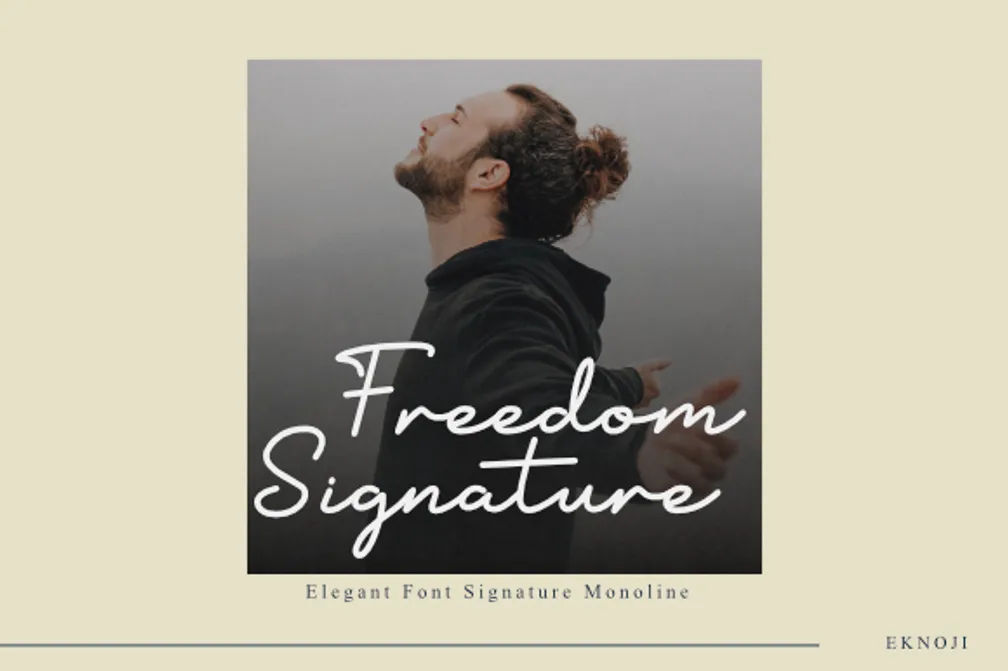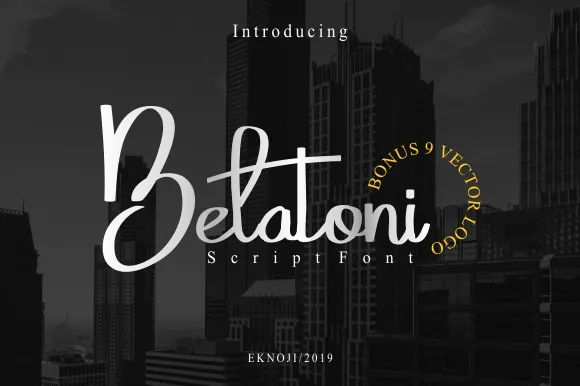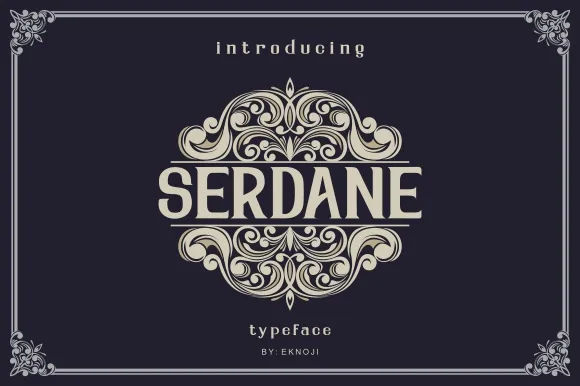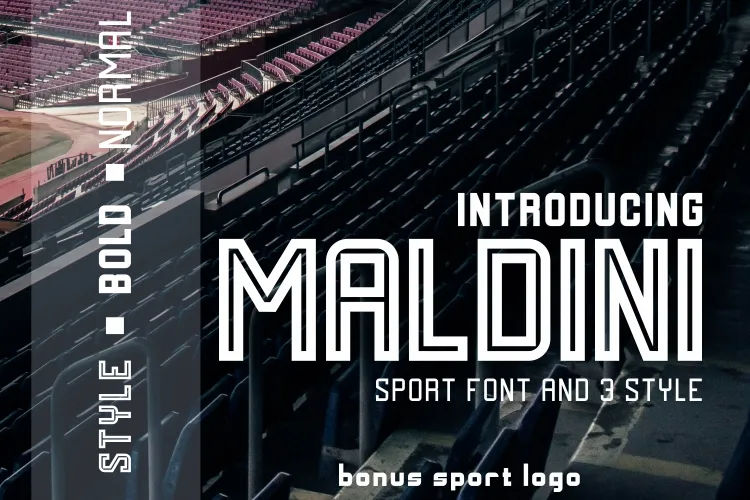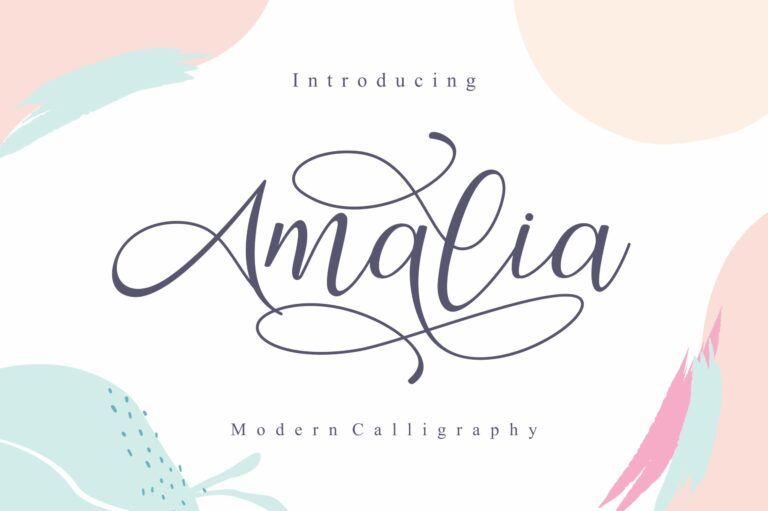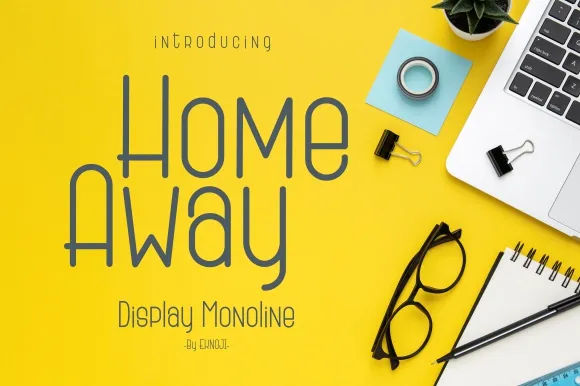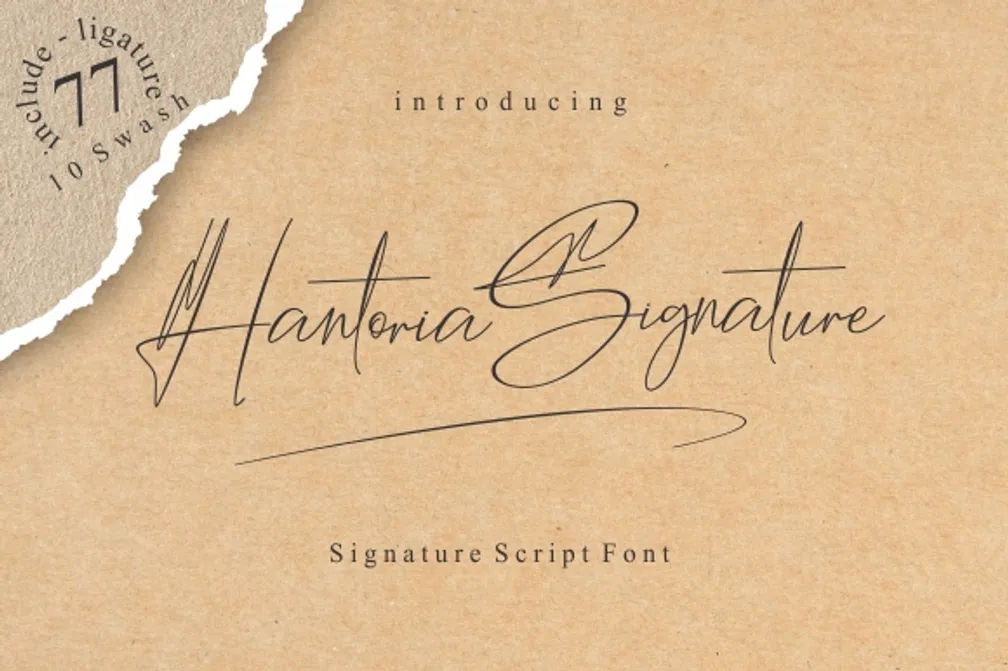
15 Premium Picks: Best Fonts for Ads Targeting Premium Audience
Choosing the right typography can instantly change how people see your brand. The best fonts for ads targeting premium audience don’t just look beautiful, they communicate exclusivity and high value at first glance. When your goal is to attract high-end customers, every visual detail matters, and font choice plays a powerful role in shaping perception.
In this article, we will explore the 15 best premium fonts that are highly effective in elevating the perceived quality of your products or services. Keep reading to discover which typeface can transform your next ad into a statement of elegance!
15 Premium Fonts for Your Premium Audience
Below is the list of 15 best fonts for ads targeting premium audience that combine elegance and aesthetics, helping your brand create a refined visual impression.
1. Freedom Signature
This script font enhances the sense of craftsmanship and exclusivity with its elegant strokes. Fit well to use for diamond collections and gold accessories promotions.
2. Amalia
Amalia brings polished, connected strokes that create an elegant aesthetic; it perfectly complements high-end fashion promotions and boutique clothing branding that need a touch of sophistication.
3. Home Away
Its stylish yet readable design helps upscale brands connect with discerning customers, making it one of the best fonts for ads targeting premium audience. It adds a refined, high-end touch to campaign visuals while maintaining a clean and professional feel.
4. Anilupa
This font elevates ad visuals with a refined presence that signals quality and prestige. It works perfectly for boutique fashion brands, helping you communicate style and exclusivity in a simple yet elegant way.
5. Hantoria Signature
Thanks to its handwritten charm with refined aesthetics, Hantoria signature font helps your brand stand out. For both fashion and skincare brands, it creates quality, personality, and exclusivity.
6. Korian
It is a graceful script font that stands out among the best fonts for ads targeting premium audience with its smooth calligraphic flow. Perfect for improving ad quality with exclusive impressions.
7. Ralgani
With its modern serif design, Ralgani delivers a premium aesthetic that enhances brand perception. Use it to upscale your catalogue with quality and class at first glance.
8. Aloritma
Aloritma delivers clarity and elegance in every character. It is ideal for upscale men’s product catalogues, enriching ad visuals while showcasing exclusivity and style.
9. Valencia
Valencia is a timeless serif font that earns its place among the best fonts for ads targeting premium audience. Bring a sense of tradition that helps give a classy yet high-end look!
10. Belatoni
With its bold yet refined style, it is perfect to use for a premium perfume or luxury watch collection. Its strong letterforms instantly create a confident and elegant look.
11. Serdane
Serdane has a balanced, stylish design that gives a premium look. It is perfect for classic automotive collections or wine brands that want a simple yet sophisticated feel.
12. Maldini
With its contemporary serif style, Maldini delivers a refined look that enhances brand perception, making it one of the best fonts for ads targeting premium audience. Perfect for sports collections, it brings clarity and a strong sense of exclusivity.
13. Kitaline
With its confident and stylish design, Kitaline delivers a premium aesthetic. It works beautifully for upscale accessory collections that aim to communicate sophistication and class.
14. Cotane Beach
Cotane Beach offers a relaxed script style without losing its elegance. Use it to enhance premium lifestyle branding with a look that feels stylish yet approachable.
15. Enfan
This font adds a unique and memorable touch that complements high-end visuals for skincare or bag products, thanks to its smooth, flowing curves.
Upgrade Your Premium Branding with the Right Font Choice
Premium branding starts with the right typography. The best fonts for ads targeting premium audience do more than decorate your design. They shape how people perceive your quality, value, and exclusivity. A carefully selected font can instantly make your fashion, jewelry, skincare, automotive, or lifestyle brand look more refined and high-end.